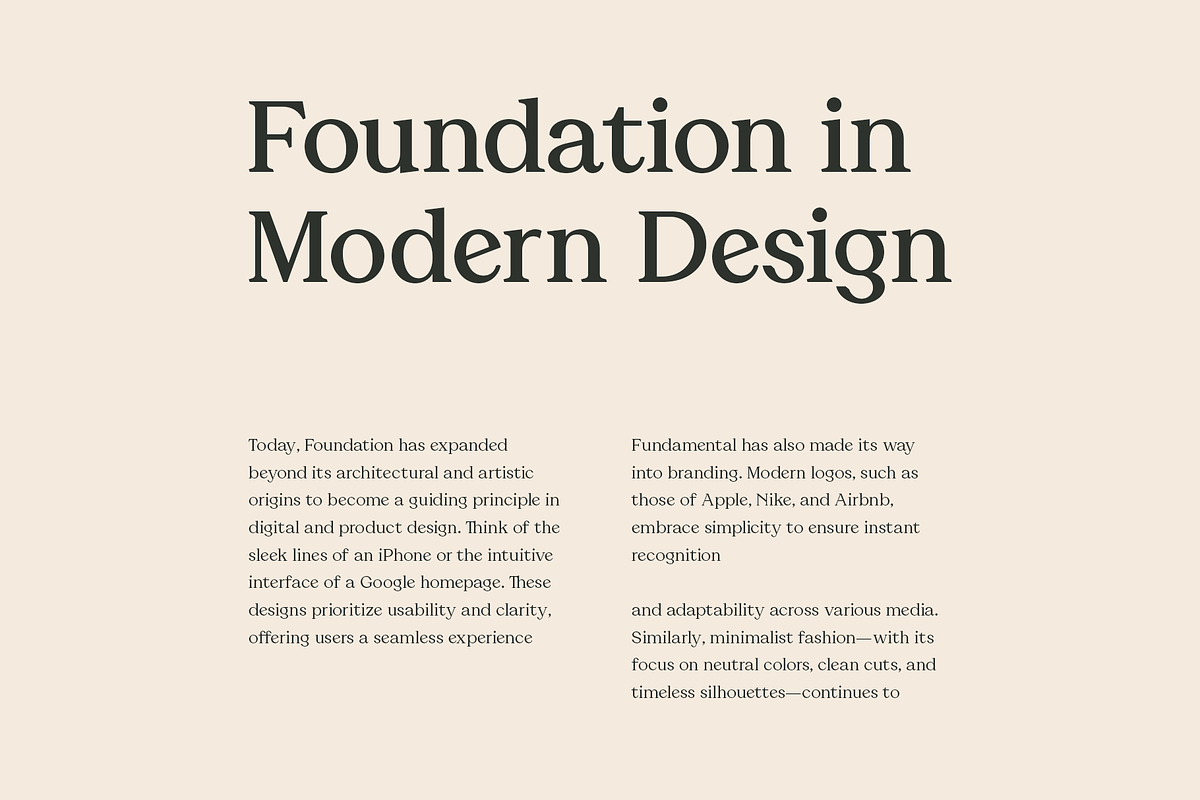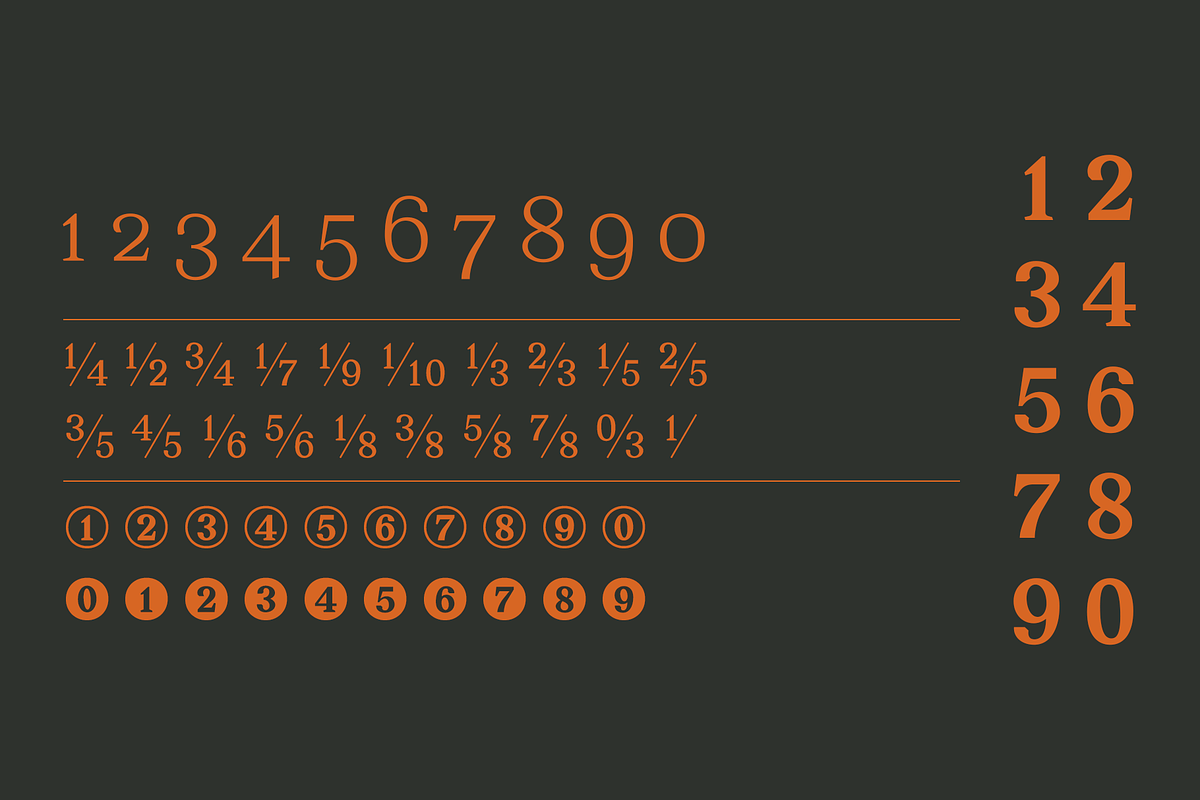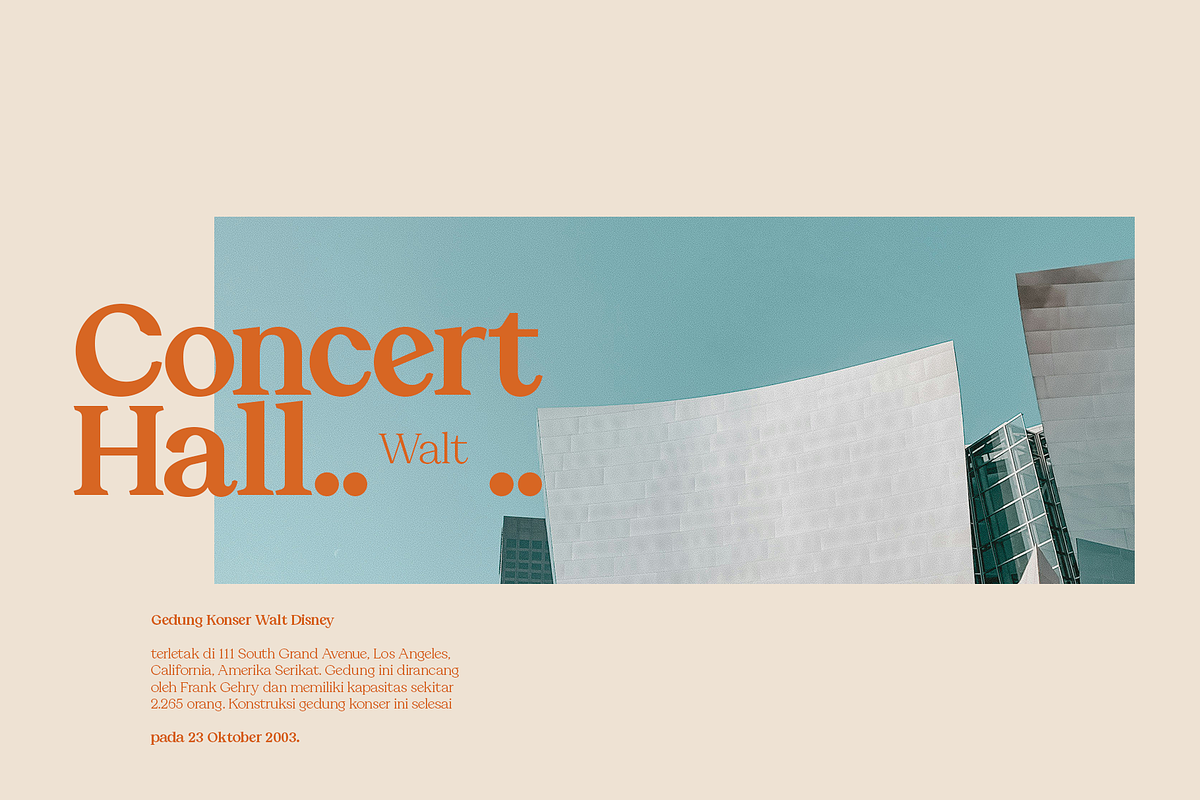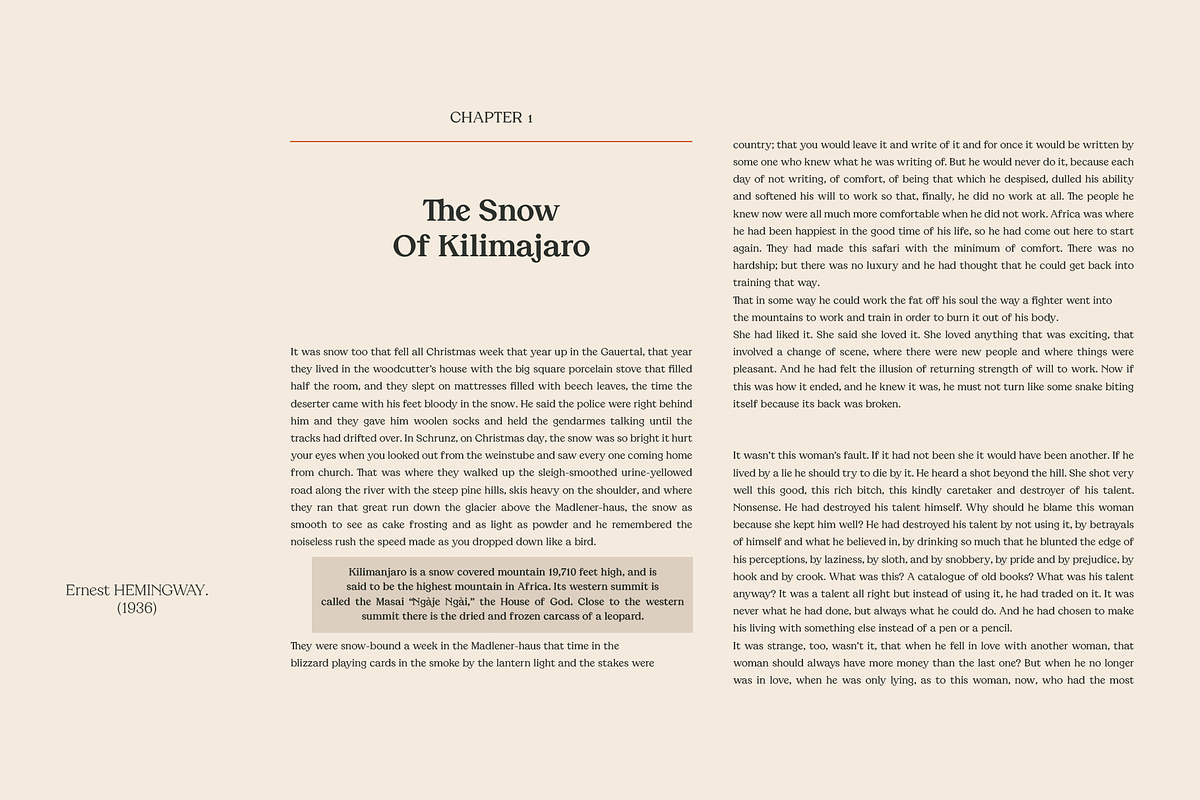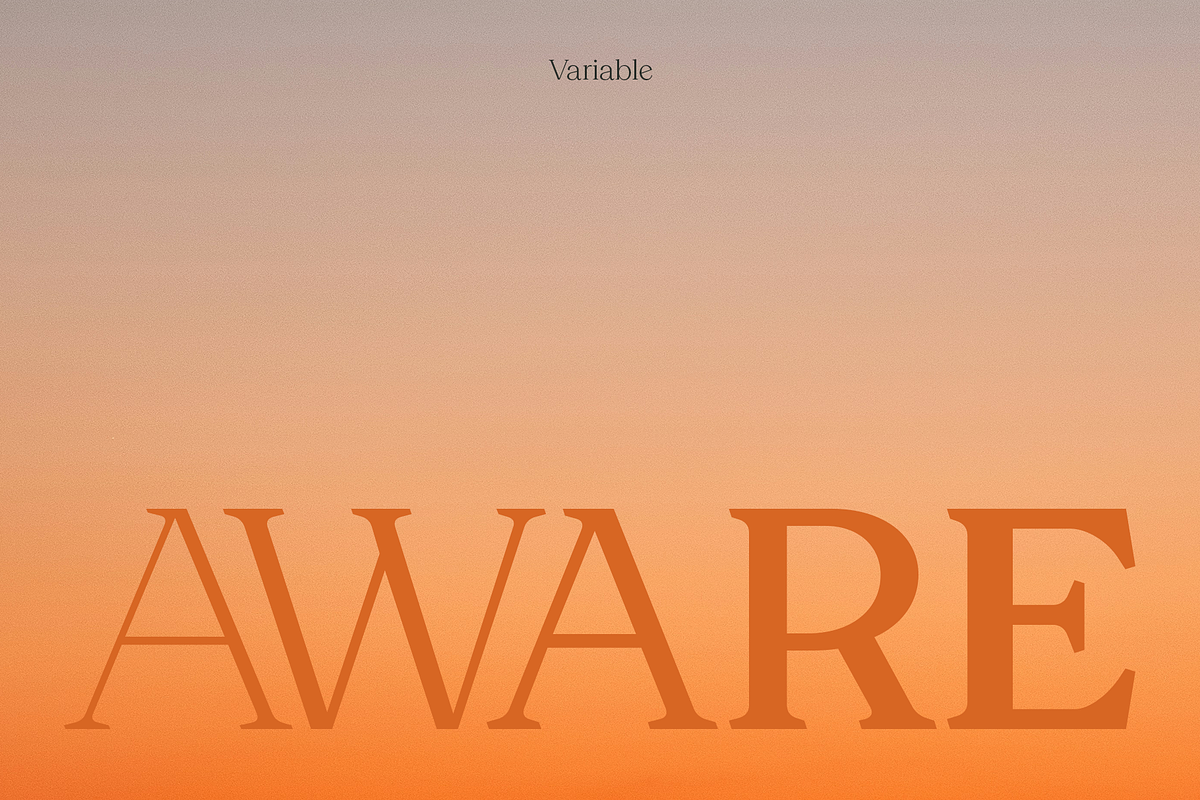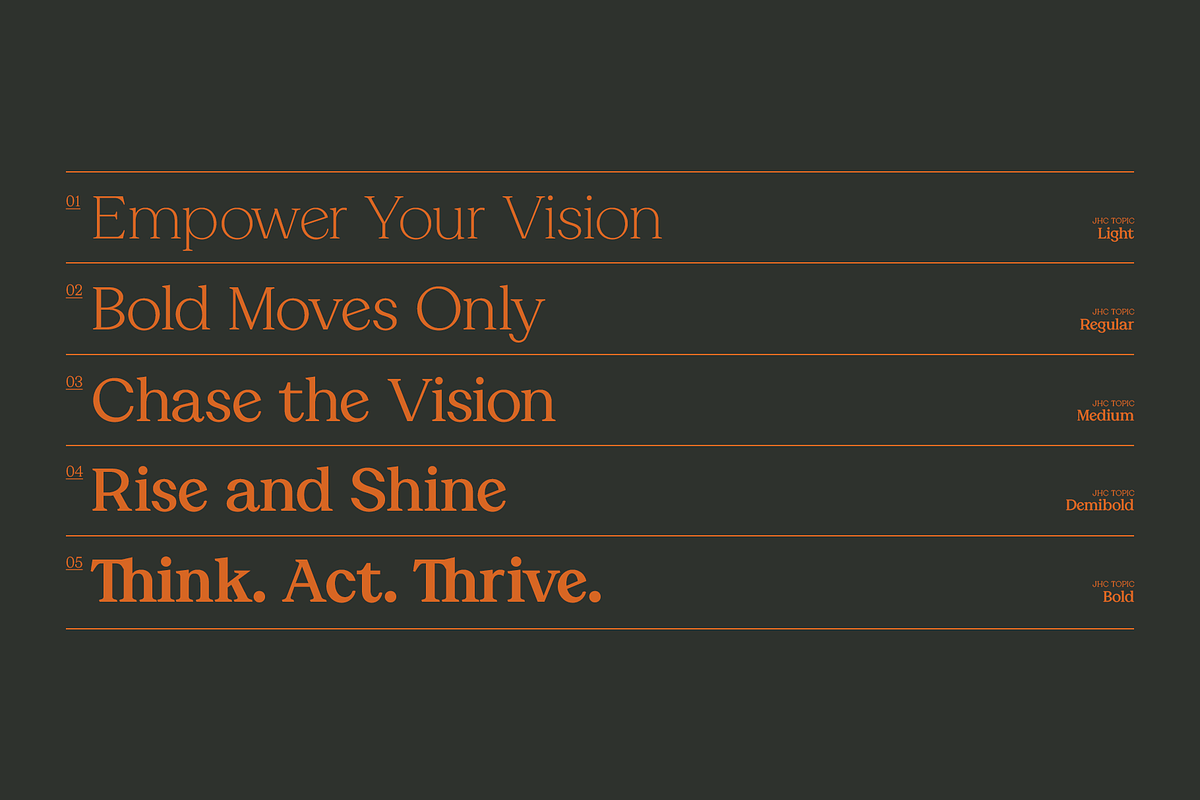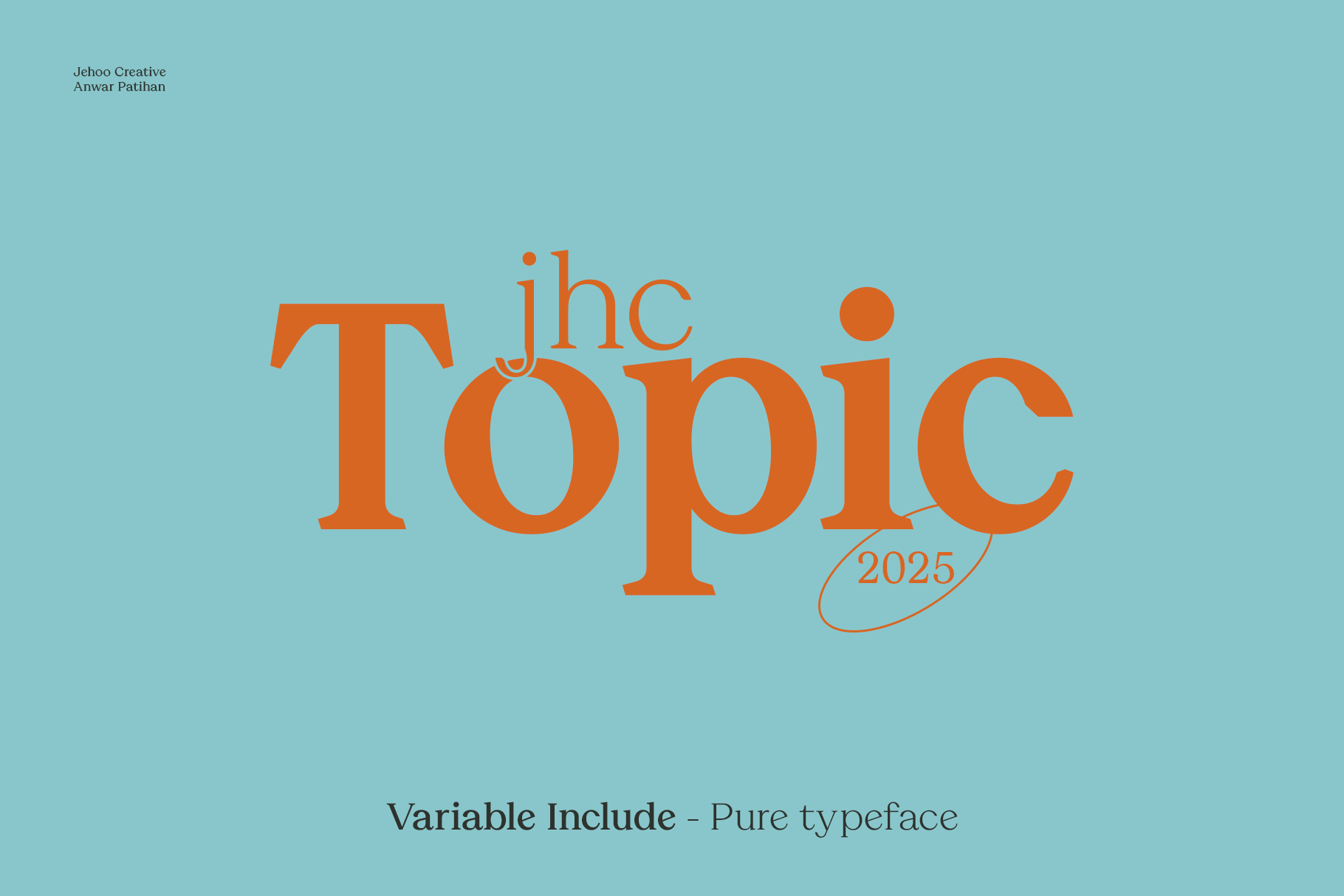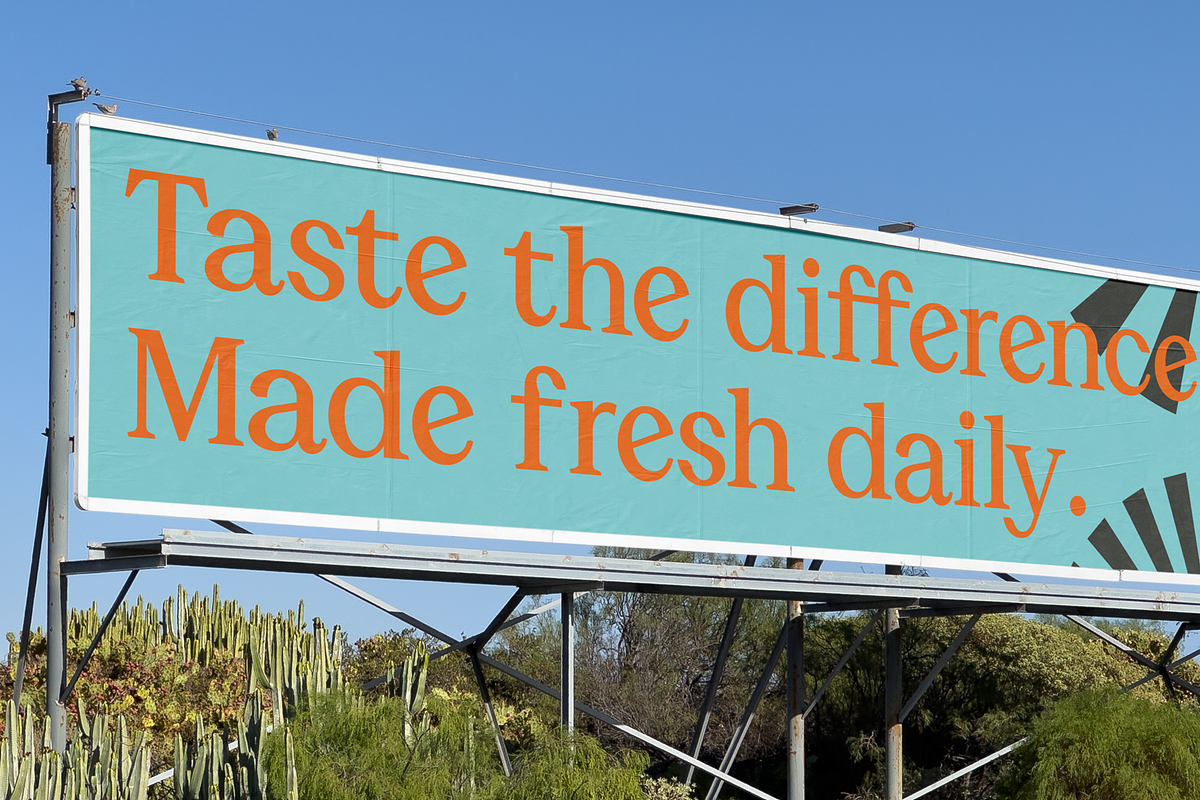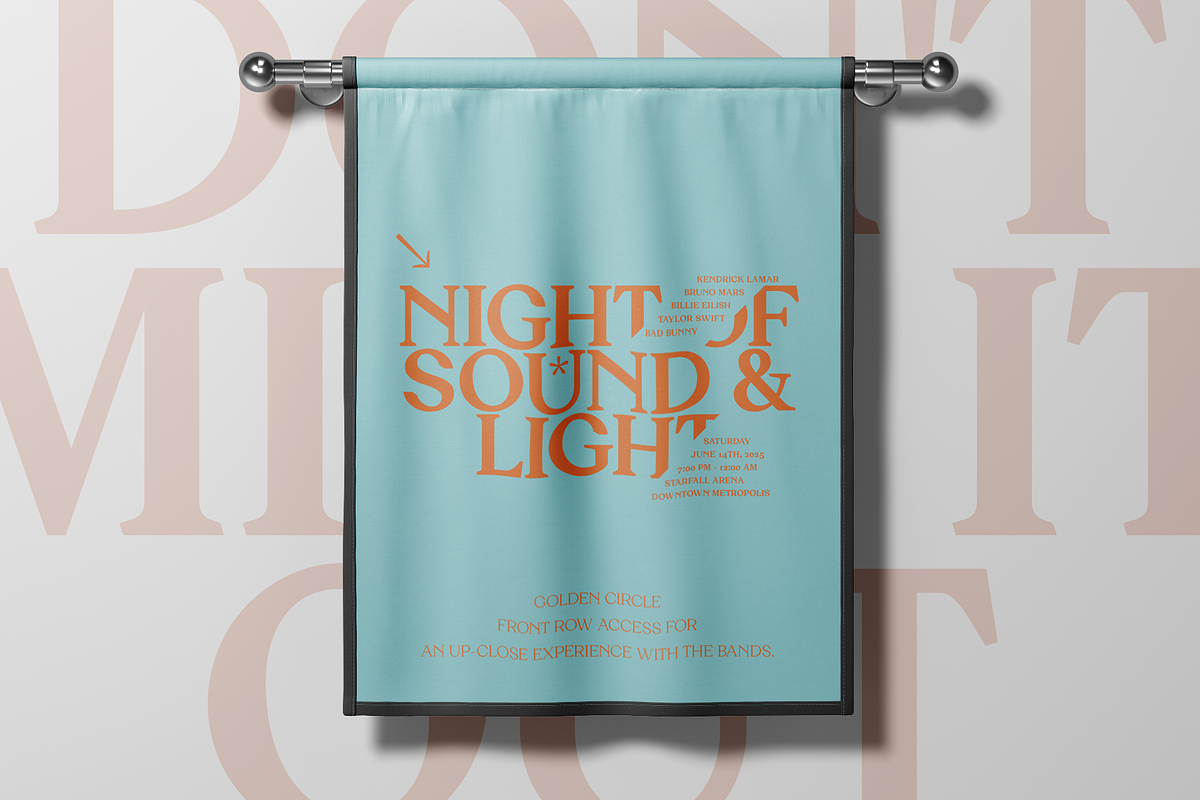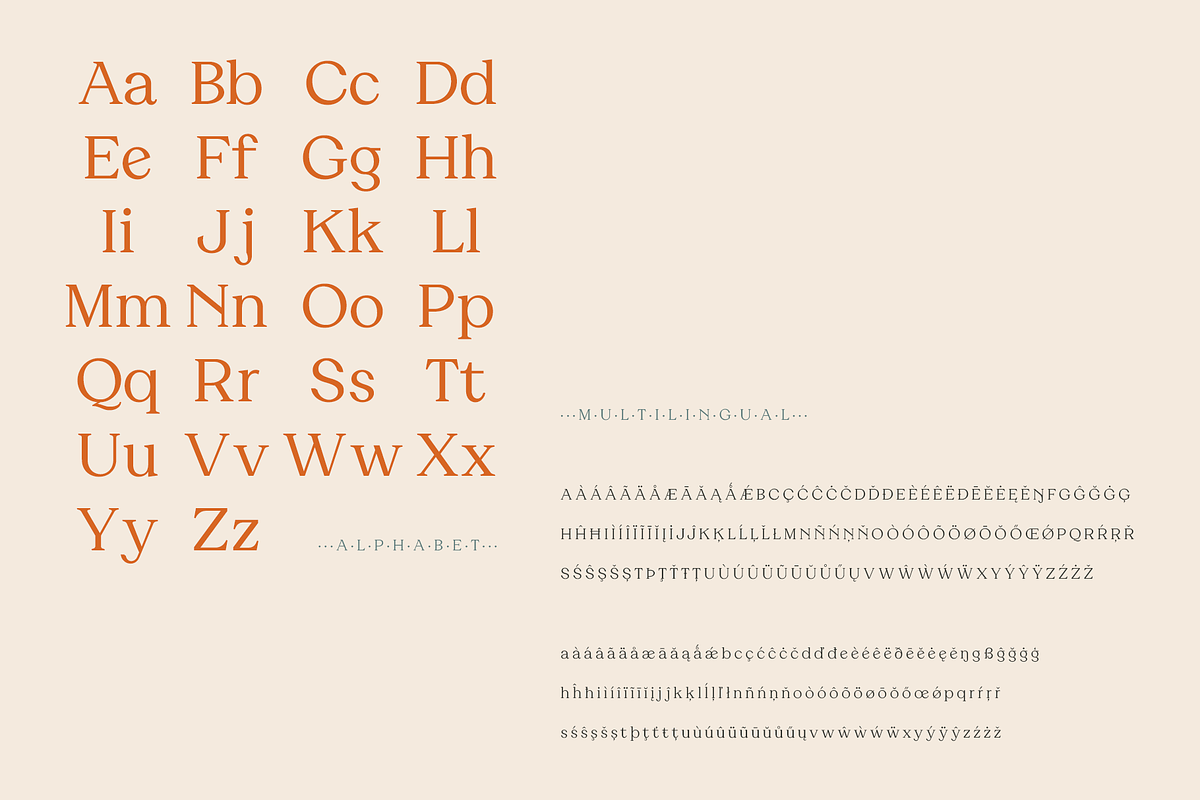
JHC Topic - Pure Typefamily
JHC Topic is a refined serif typeface designed for versatility and elegance. It features clean lines, subtle contrasts, and modern proportions that give it a contemporary feel while retaining the timeless appeal of classic serif fonts. With its sharp serifs and balanced letterforms, JHC Topic is perfect for editorial design, branding, and web typography. The font is crafted to ensure excellent readability at smaller sizes while maintaining a strong visual impact when used for headlines or display purposes.